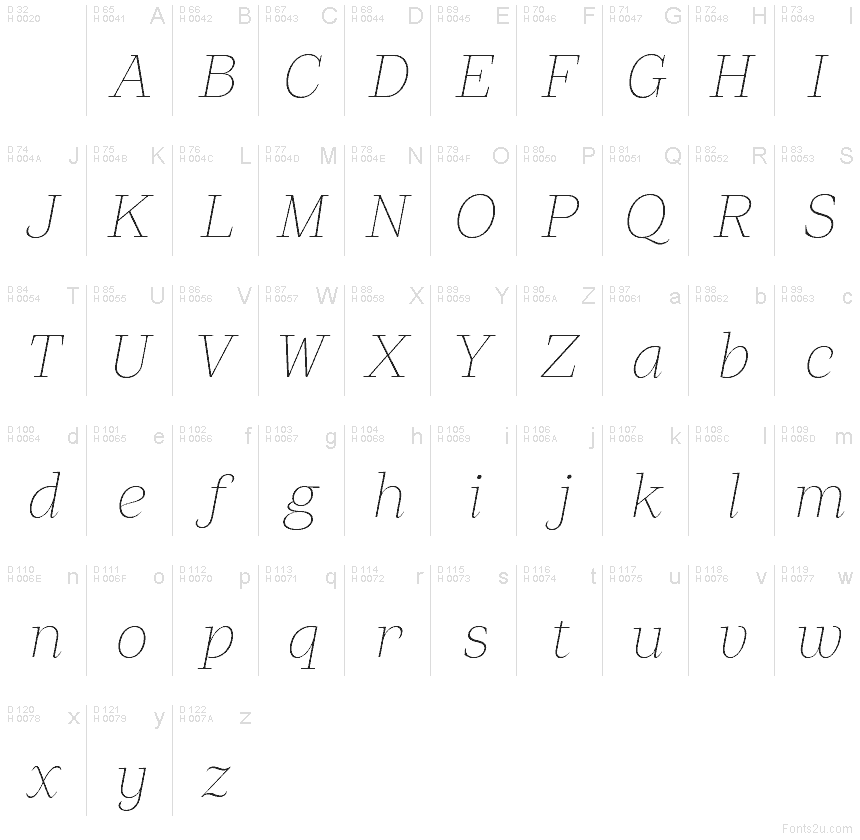
Klimaks Demo Thin Italic
Klimaks Thin Italic font by Kereatype Studio is a light serif font that attracts the viewer with its elegant shape and refined design. This sophisticated free typeface is evocative of classic styles, and ideal for lovers of modernity, sophistication, and professionalism. It combines a minimal yet expressive look where each letter has its individuality yet symmetry keeping the necessary balance.
The uses for this unique font are endless! Choose it for branding needs including creating business cards, product packages, or logos. Klimaks would also adorn books cover designs and even body texts. Try it as well for magazine headings and advertisements or to add elegance to greeting cards and social media posts.